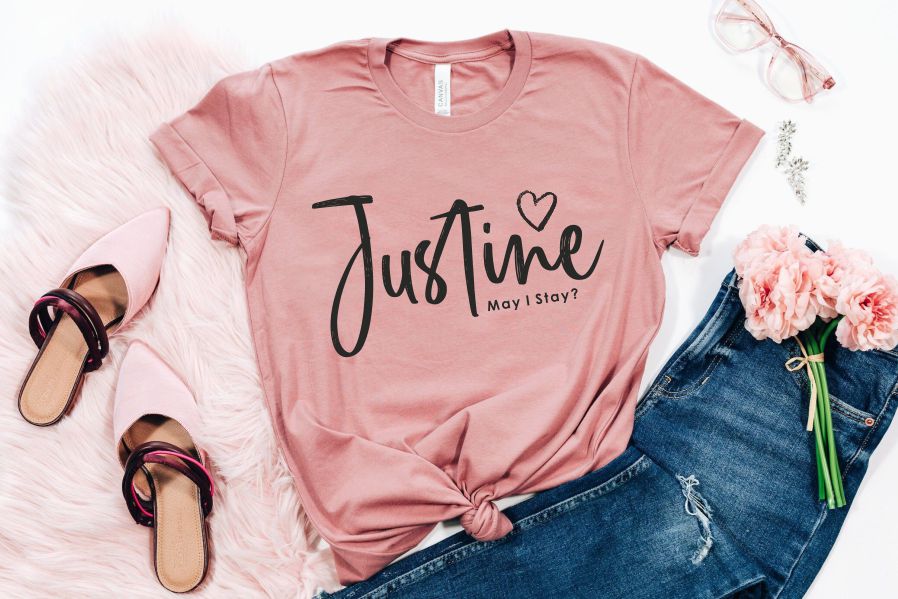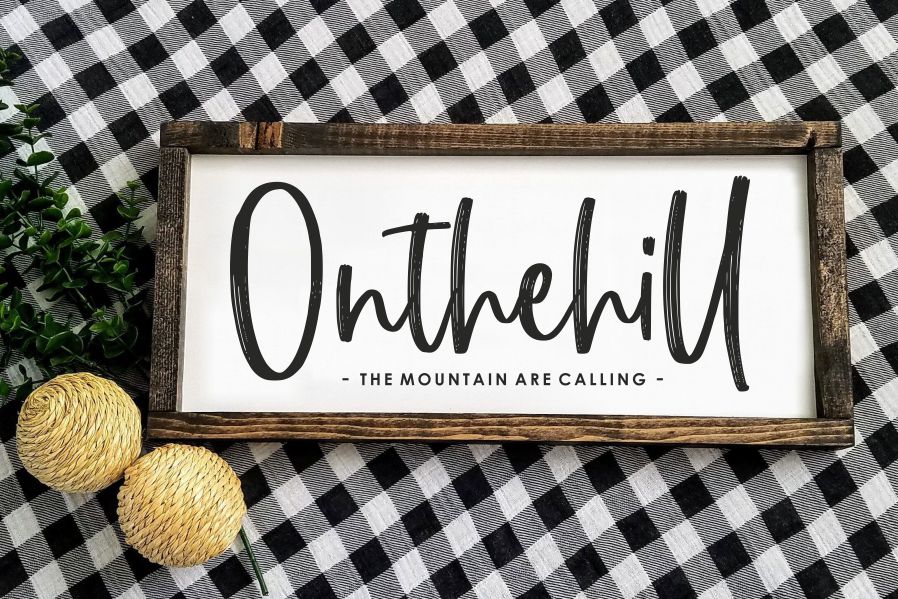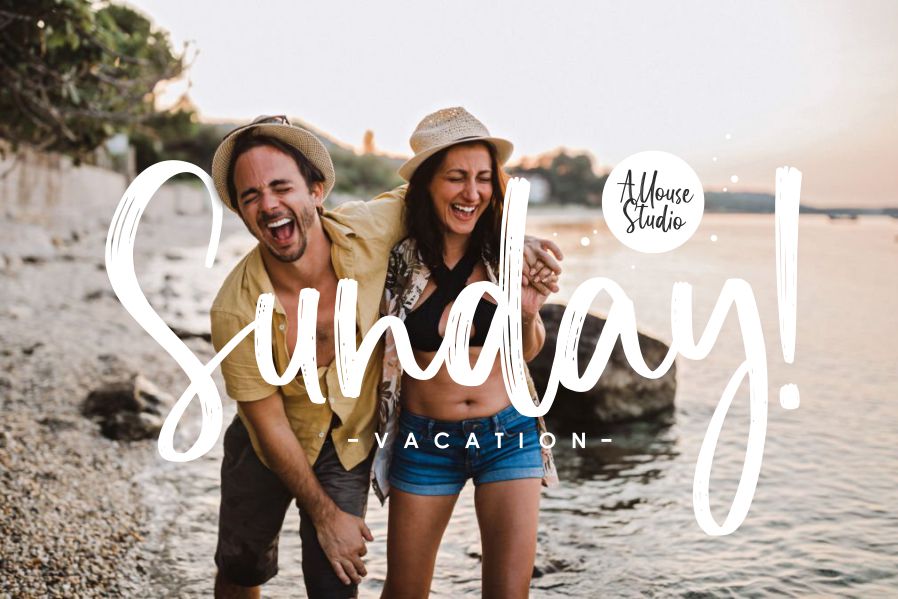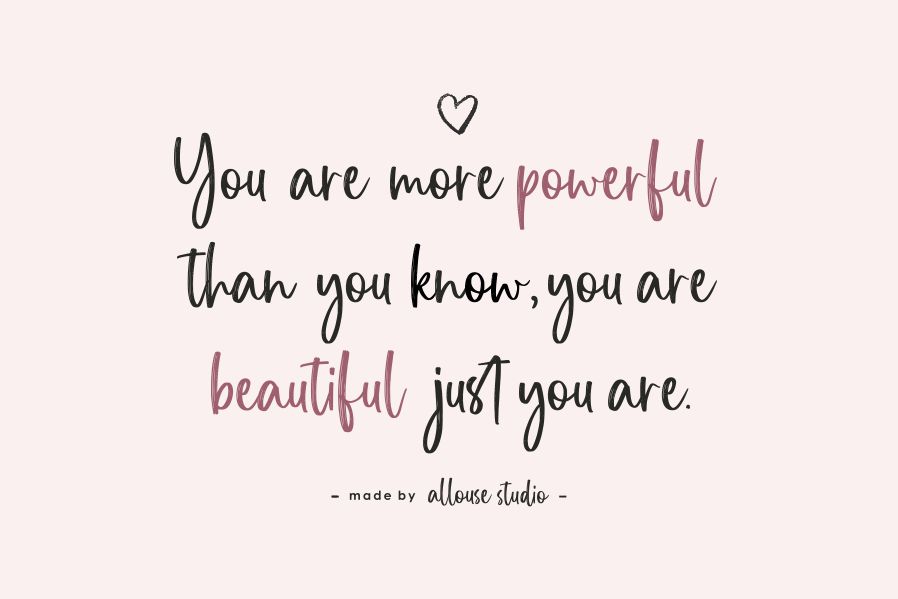
Insighttime Font
Insighttime Script Font feels equally charming and elegant. It looks stunning on wedding invitations, thank you cards, quotes, greeting cards, logos, business cards, and every other design which needs a handwritten touch.